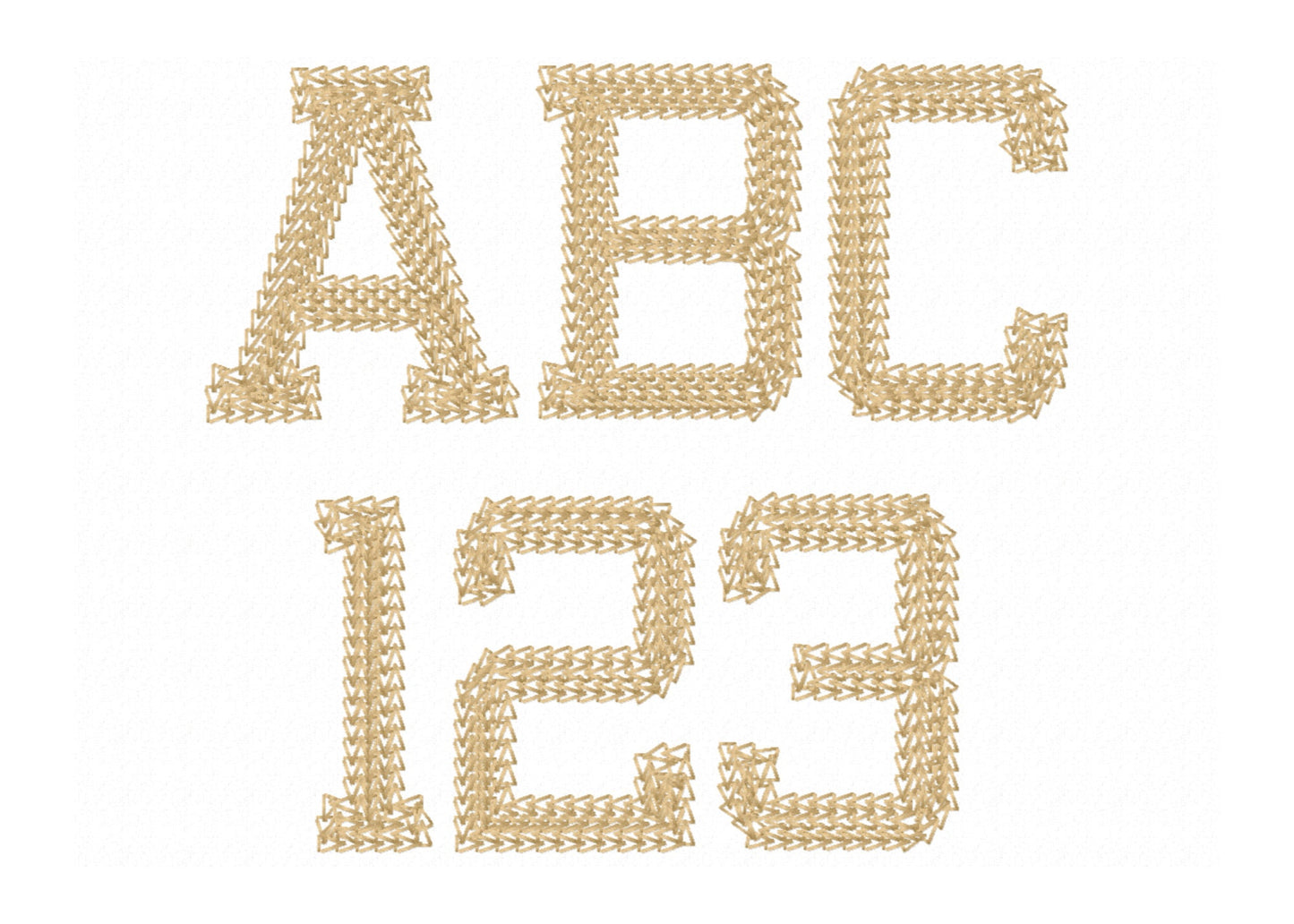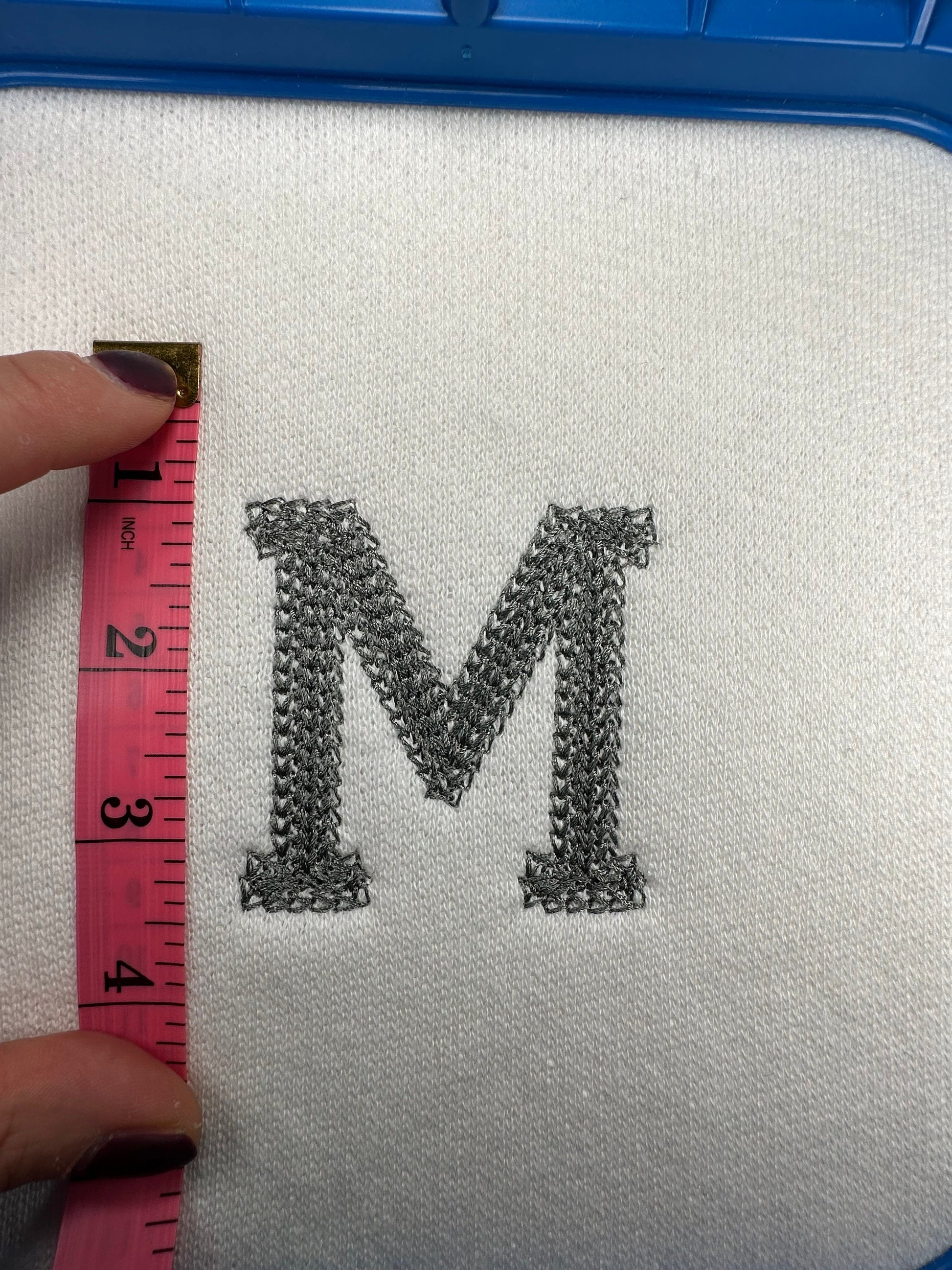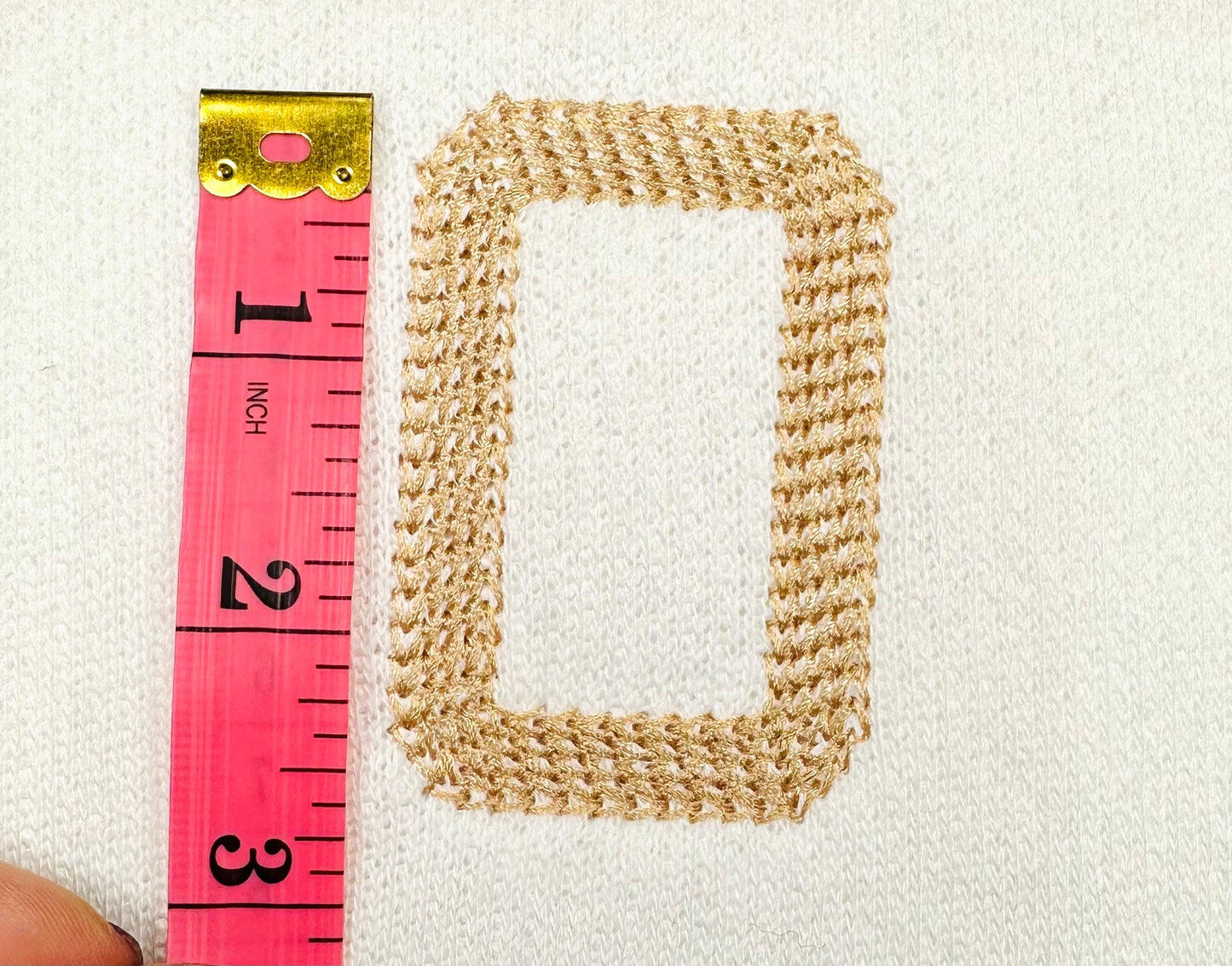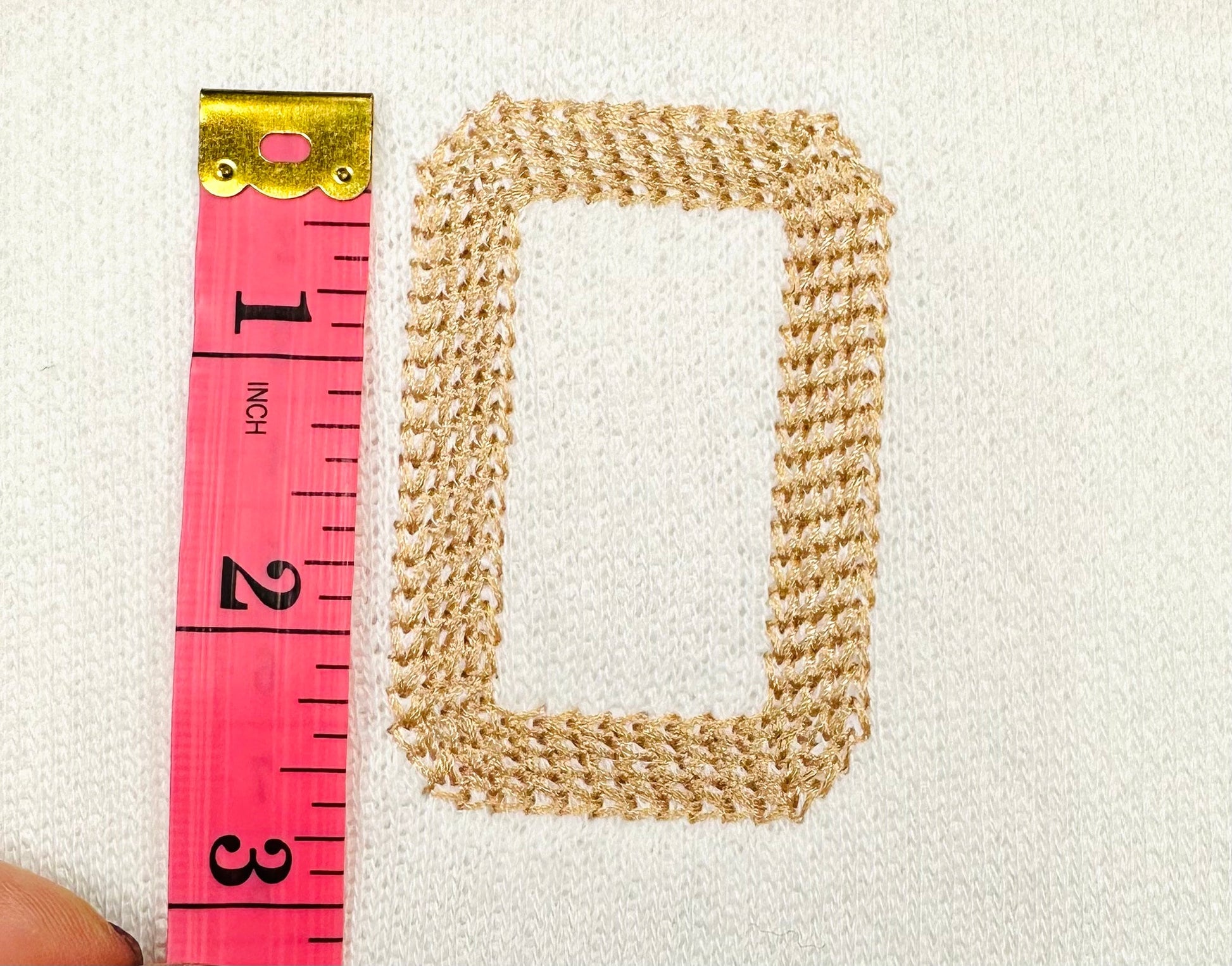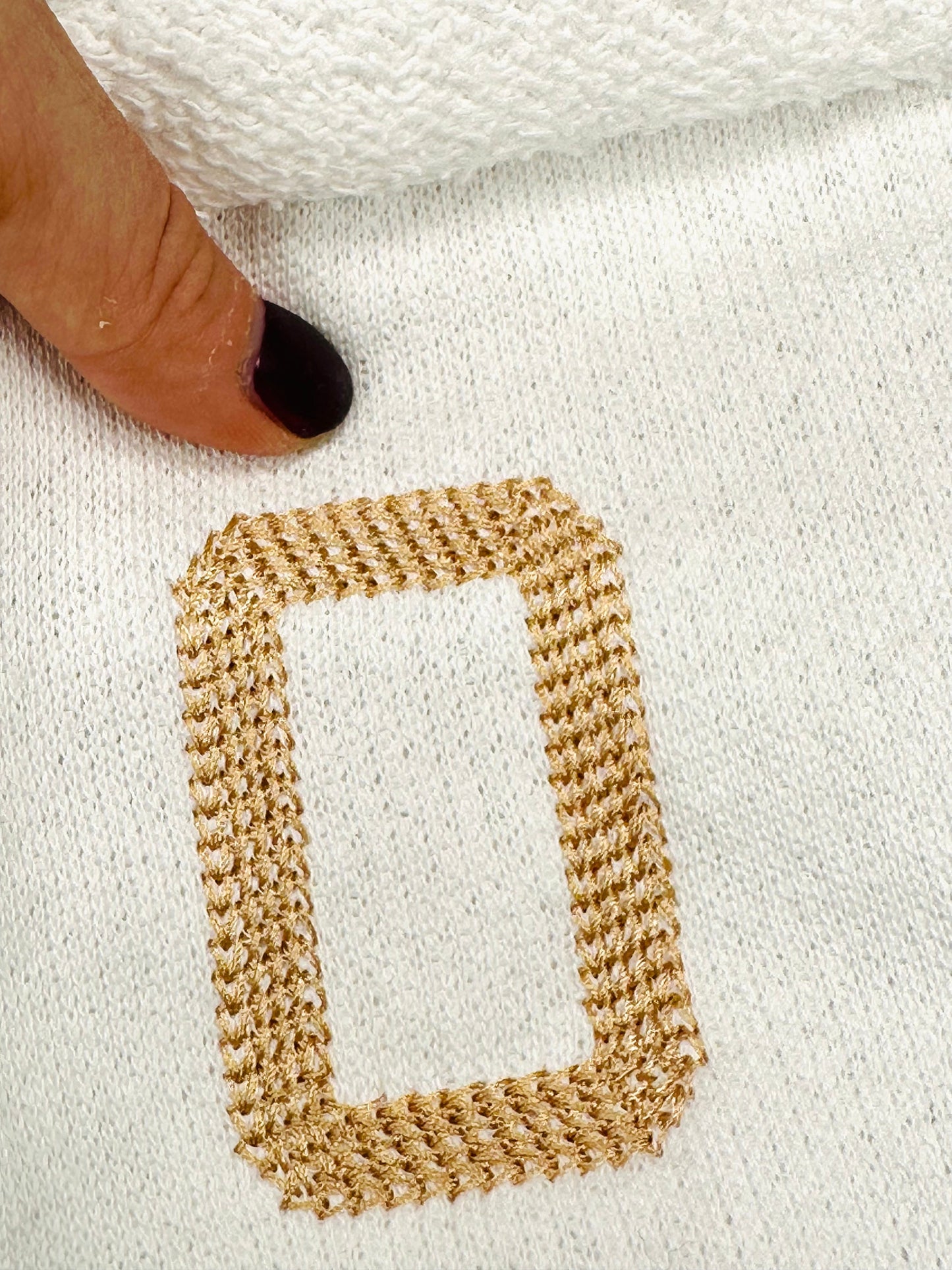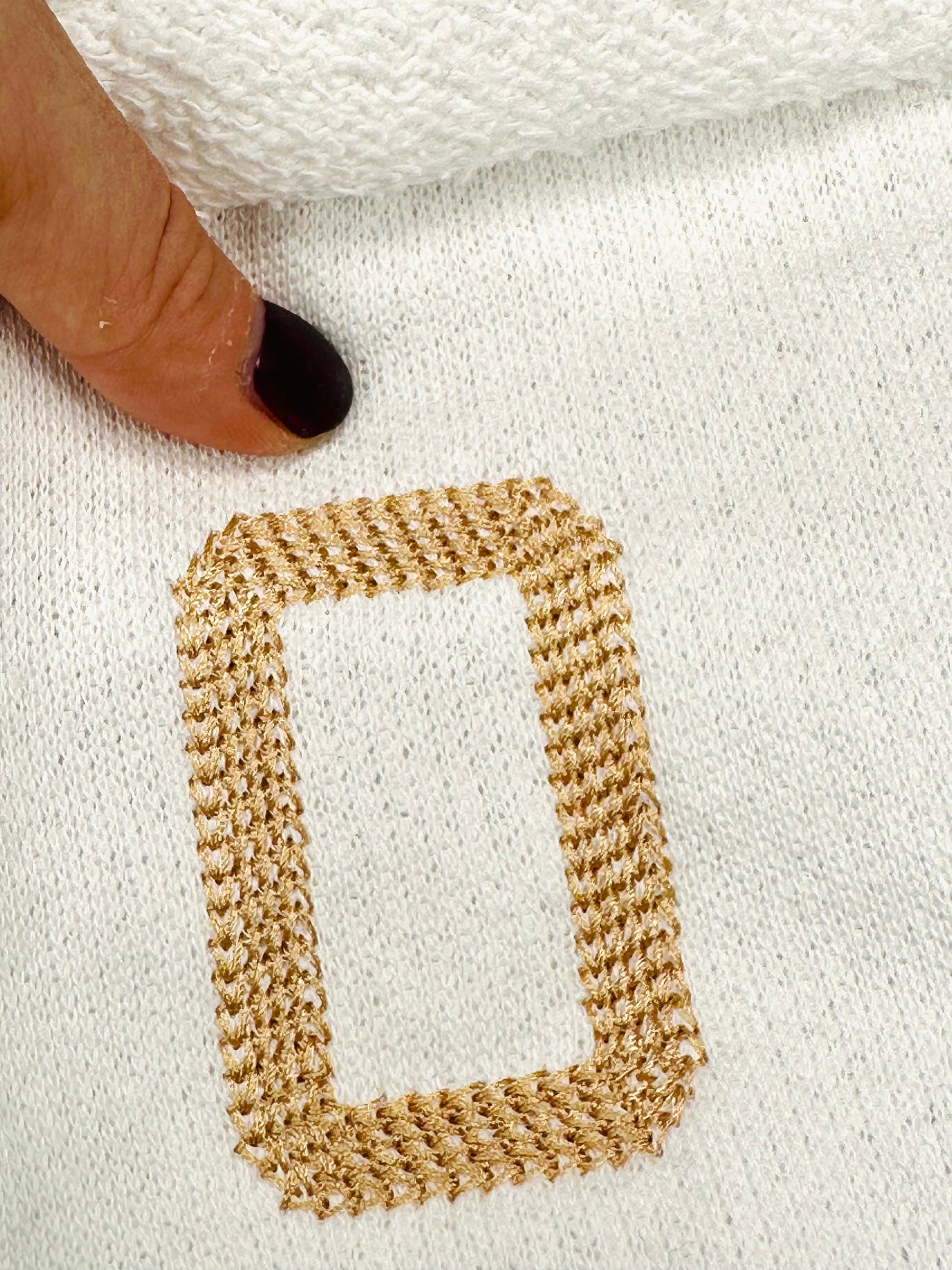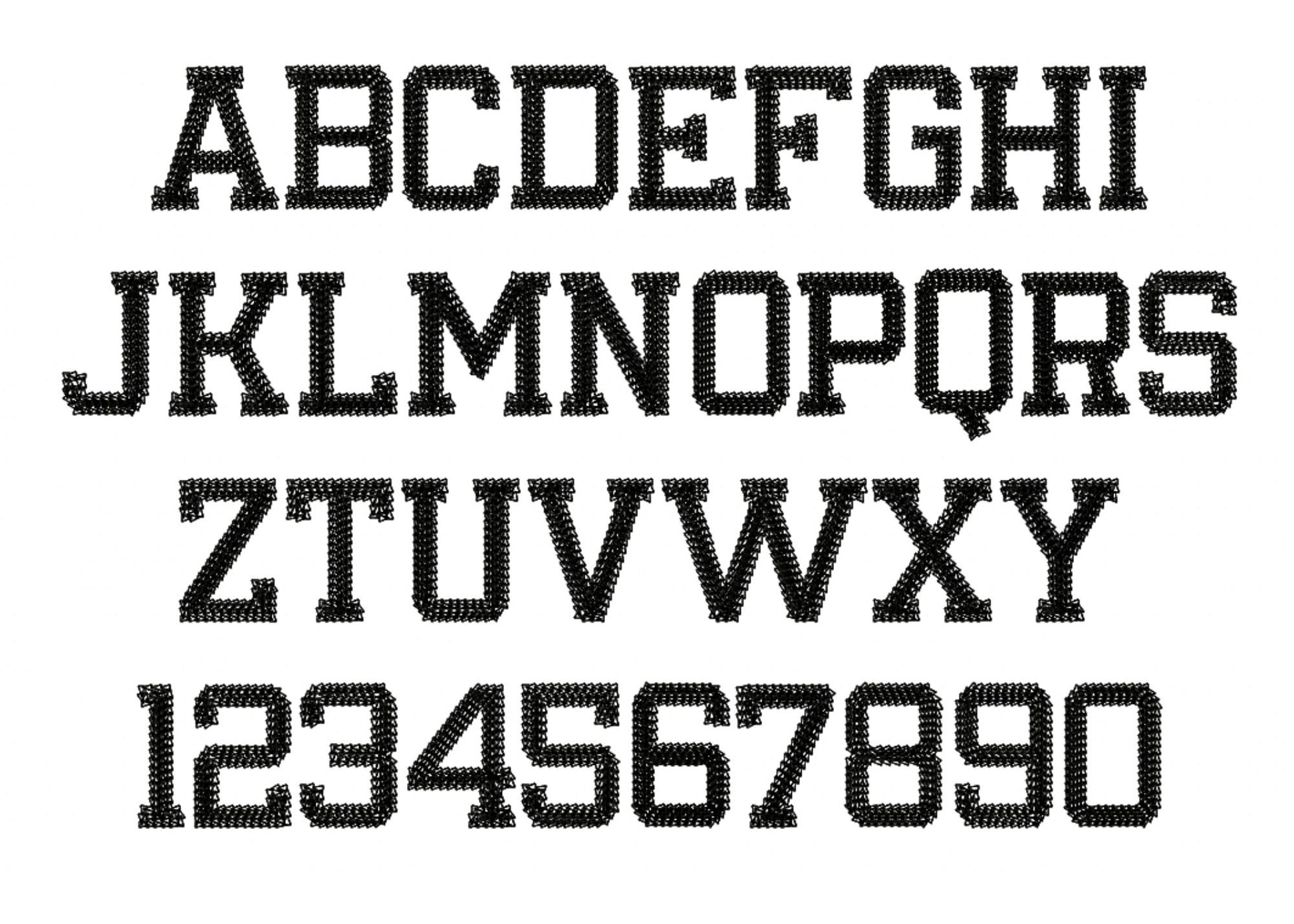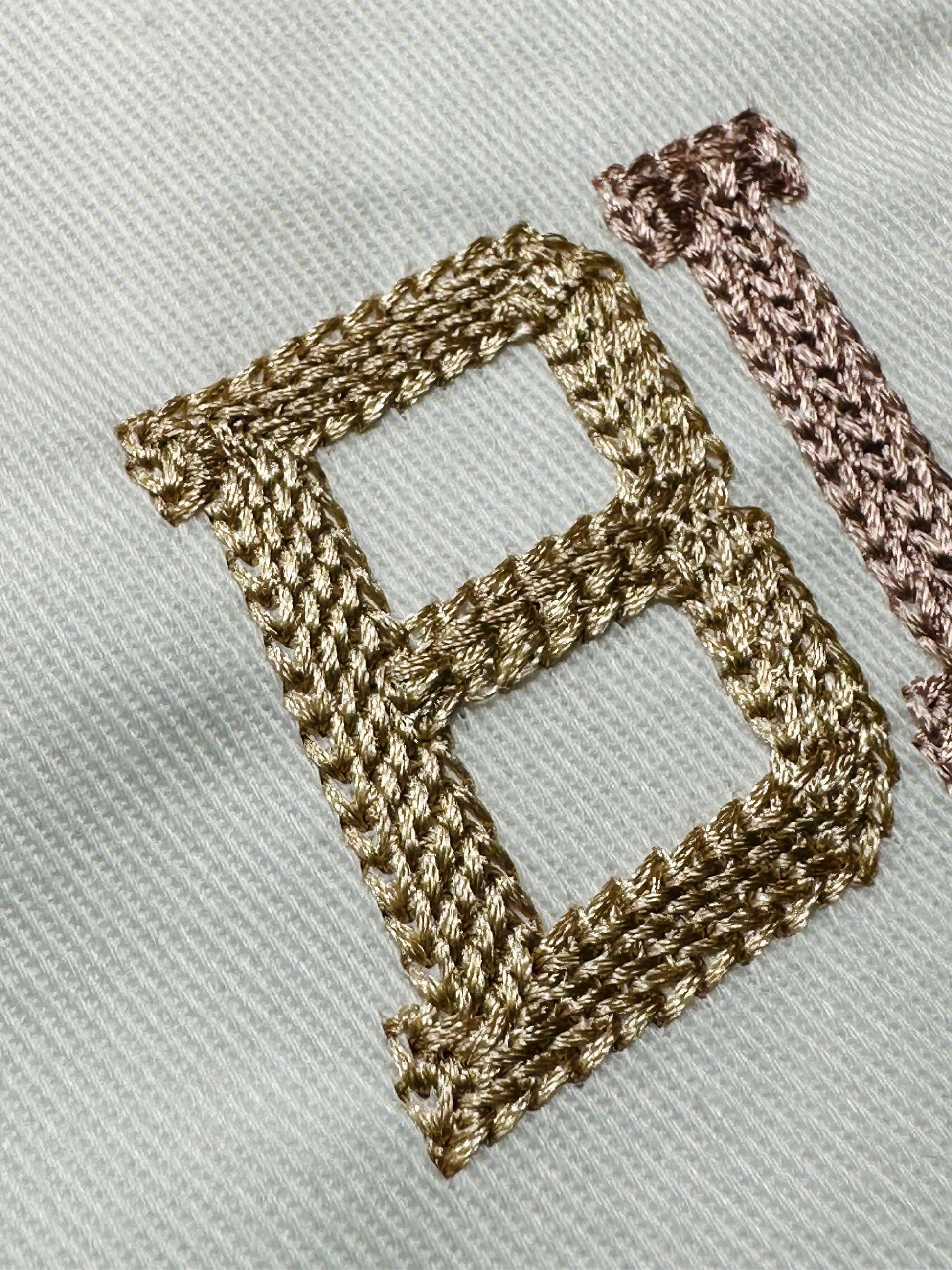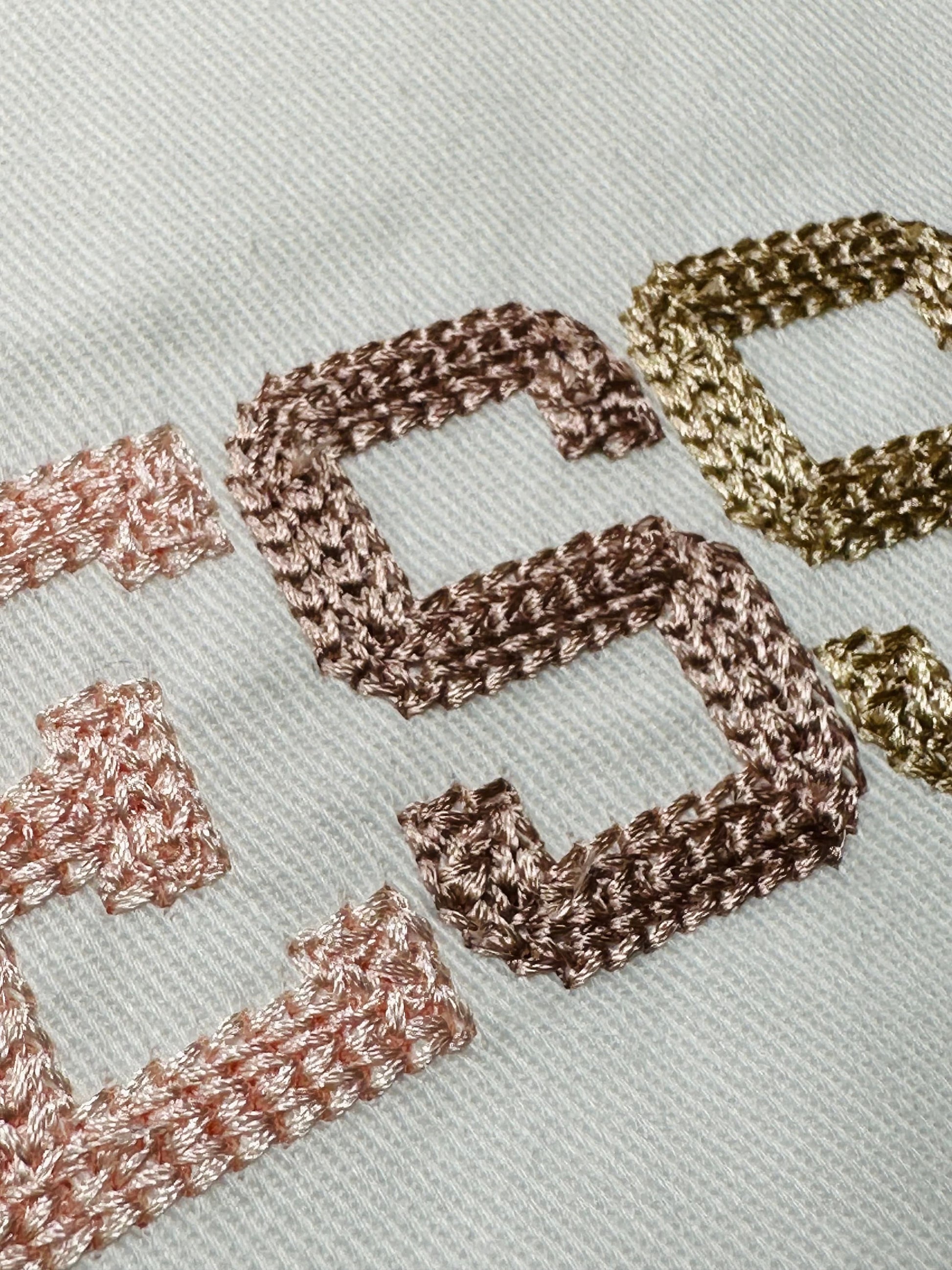
This font stitched out flawlessly and is so beautiful!
Great font! Came out beautifully!
This is a beautiful font and so trendy. I put it on both a sweater and sweatshirt and both turned out great
Pretty sew out. Very pleased
Always a great stitch out. Love her designs.
This design stitched out nice
I did this puff and my customer loved it. TY
Stitches out very nice! I did this design on a couple sweatshirts.
Great and stitched out great
This stitched out so well. Although mine isn't raised like this one is.
This design stitched out perfectly
Stitched out beautifully. Easy to upload.
Unique font and stitched out well
Mooi font, borduurt mooi uit.
great quality. used it on a tshirt.
Stitched out perfect! Thanks so much
Amazed by all of your designs! Again, another perfect stitch out!
Stitched out beautifully!! Mom loved it
This stitching is so nice.
I Love ❤️ this font
Stitched out great! Thank you
These stitch out really well.
lovely it stich out very nice thank you
If you're thinking about this one, get it! Cuter than I imagined and stitched perfectly!
Looks like a great font
The design sewed out great
This design stitched out perfect.
I really like this font, came out cute.
This is so unique. Looks great.
very heavy stitching, looks great, a unique font